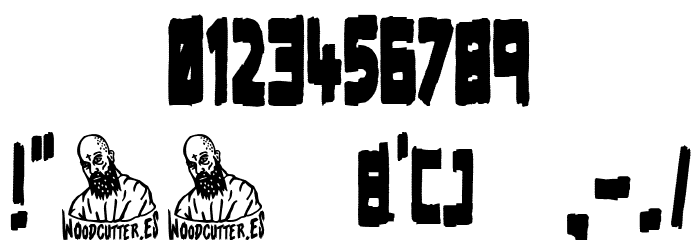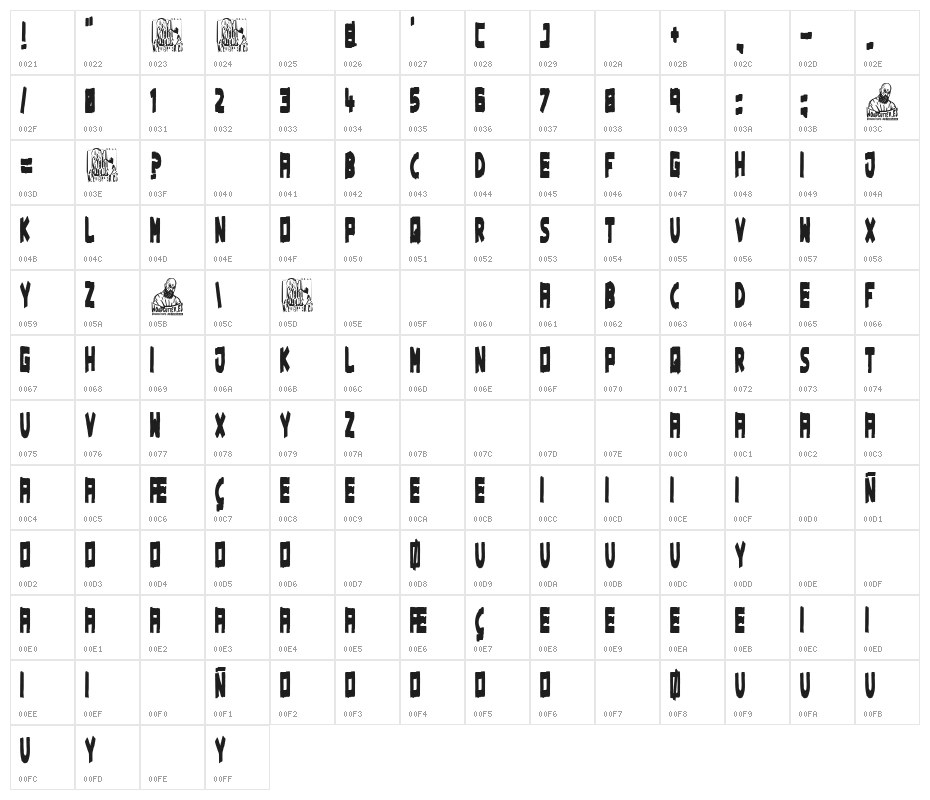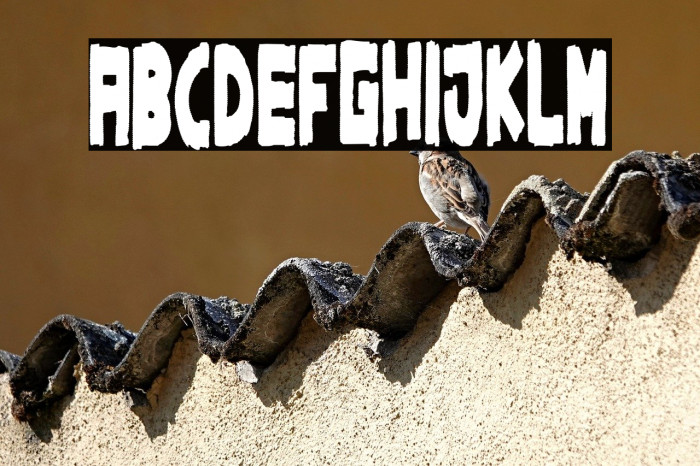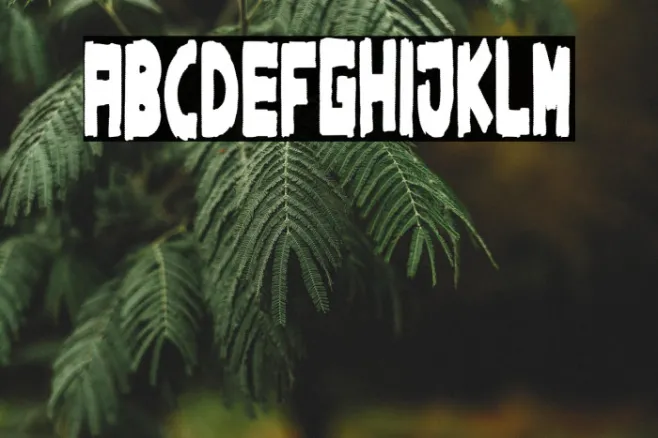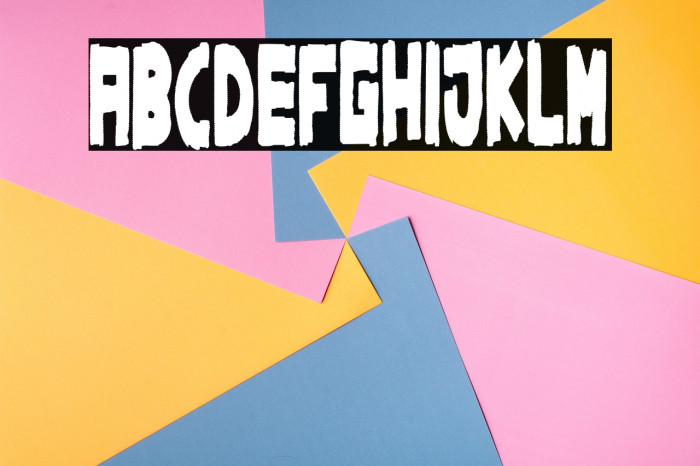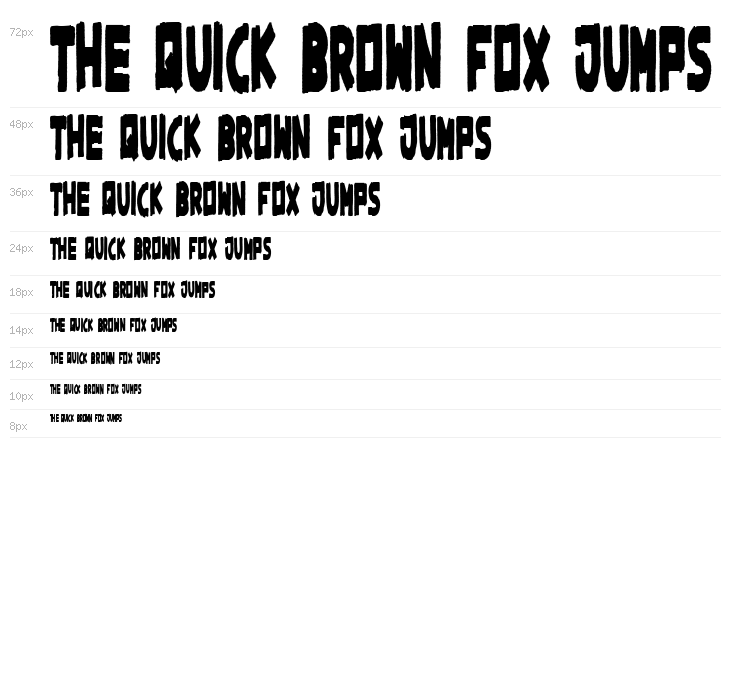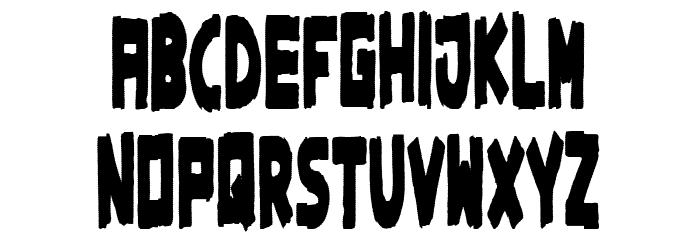
Iberian Rugby Team Font
Iberian Rugby Team Description
This font features a bold and rugged style, characterized by its thick, uneven strokes and slightly distressed appearance. The uppercase and lowercase letters share a consistent weight, giving the font a cohesive look. The numbers and special characters maintain the same boldness, ensuring uniformity across all glyphs. The font's design suggests a handcrafted, organic feel, making it suitable for projects that require a touch of authenticity and rawness. Its distinctive appearance makes it stand out, ideal for capturing attention.
| Overall Style | Rugged, Handcrafted |
| Proposed Projects | This font is perfect for branding projects, posters, and merchandise that aim to convey a sense of strength and authenticity. It can also be used in sports-related designs or any project that requires a bold statement. |